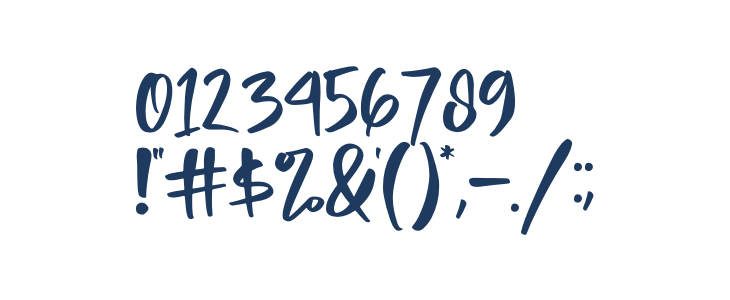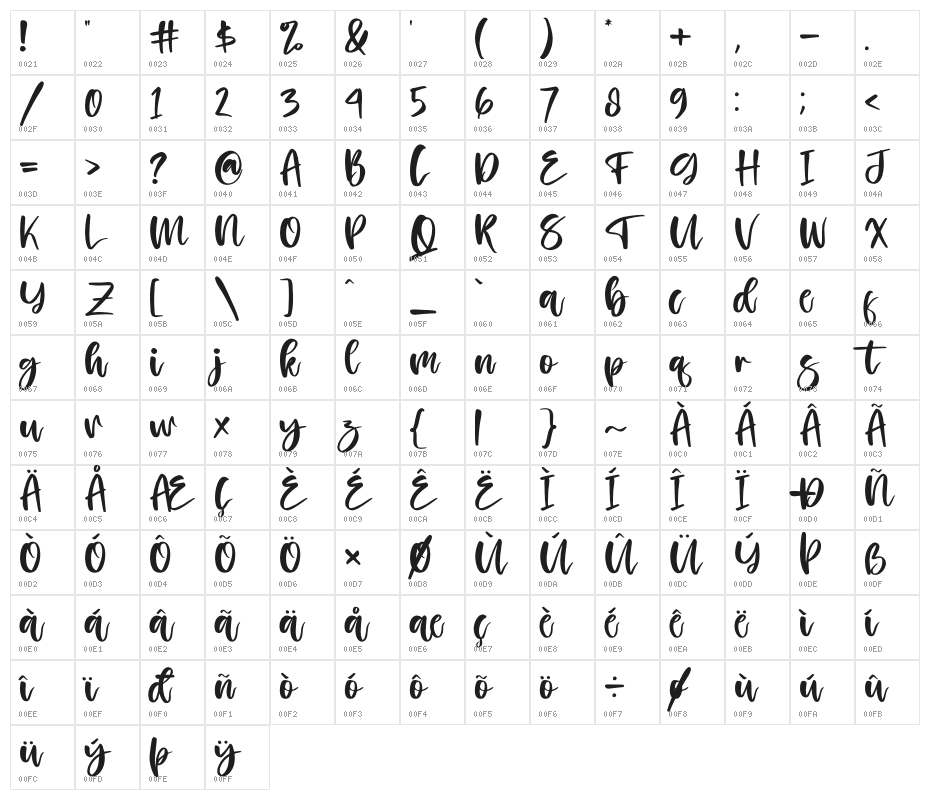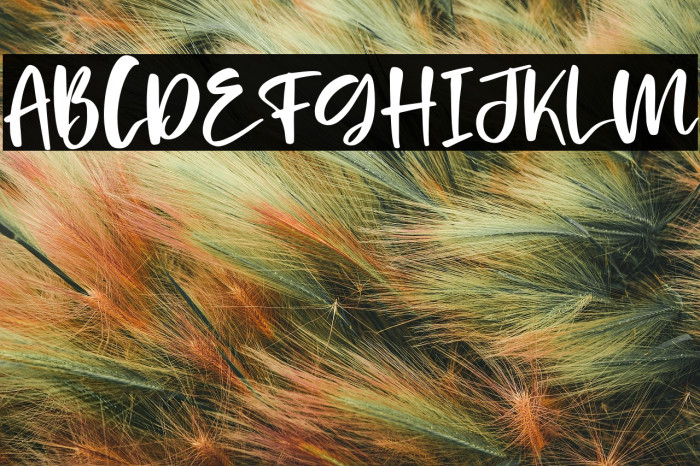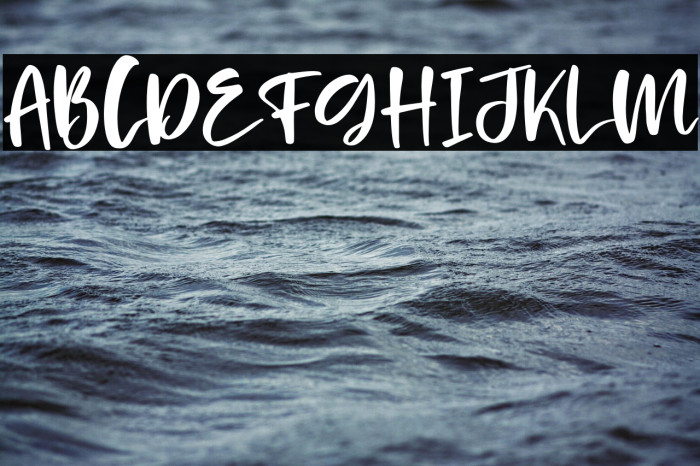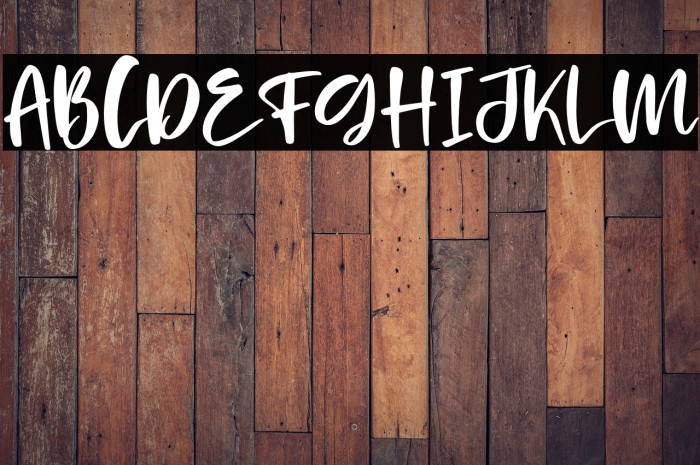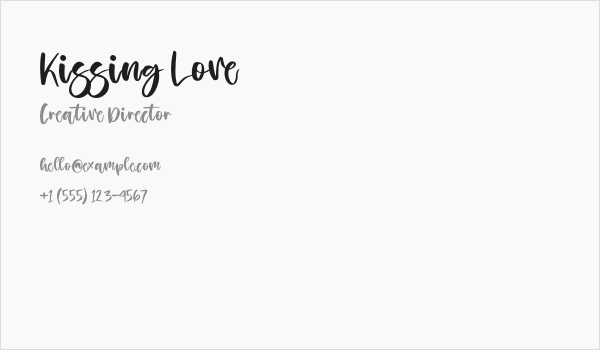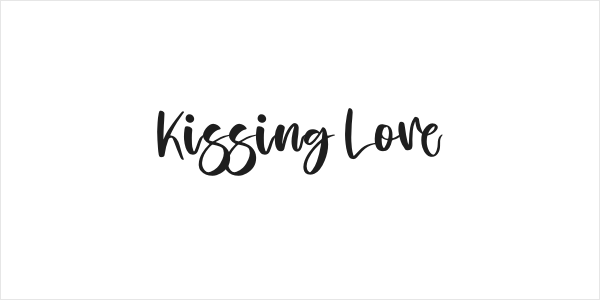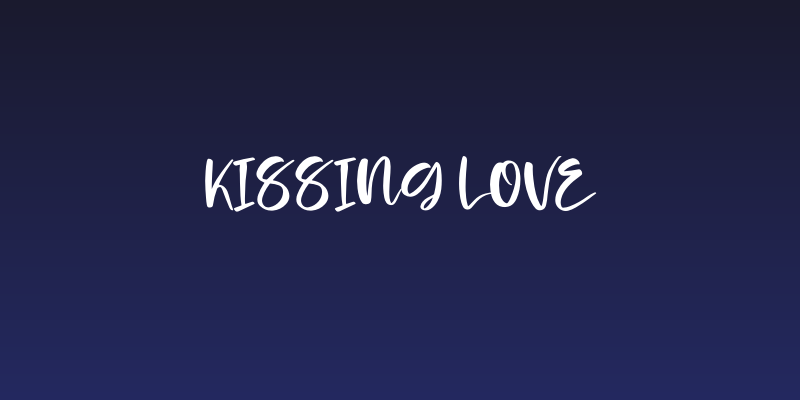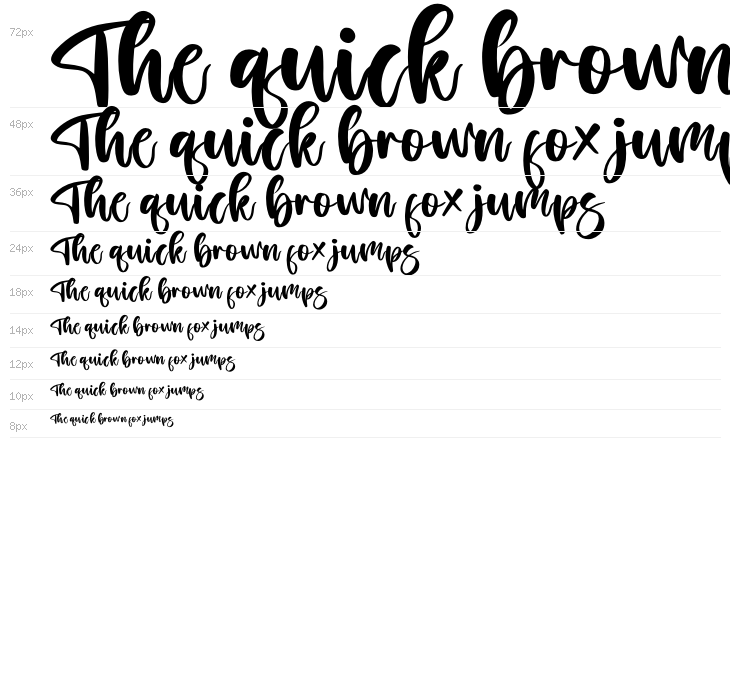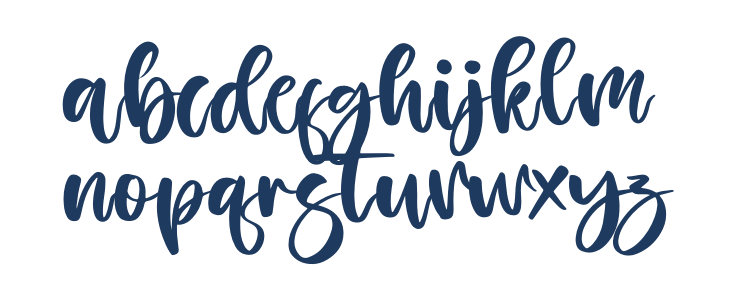
Kissing Love Font
Kissing Love Description
This font exudes a playful and romantic vibe with its bold, cursive style. The letters are fluid and dynamic, featuring a handwritten aesthetic that adds a personal touch. The uppercase and lowercase letters maintain a consistent flow, with some characters extending slightly beyond the baseline, adding to the whimsical nature. The numbers and special characters are equally expressive, ensuring a cohesive look across all elements. This font is perfect for projects that require a touch of elegance and charm, making it ideal for invitations, greeting cards, and branding that seeks to convey warmth and personality.
| Proposed Projects | Ideal for wedding invitations, greeting cards, personal branding, and romantic-themed designs. |